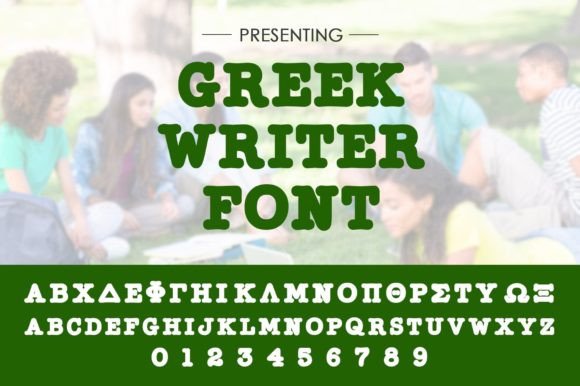
Greek Writer Font: The Ultimate Choice for Designing Greek and Collegiate T-Shirts
The Greek Writer font has gained immense popularity among designers and fraternity/sorority enthusiasts alike. This unique serif font is specifically designed for creating stunning Greek and collegiate-themed designs, making it a top choice for t-shirt designers, promotional product creators, and more. In this article, we’ll dive into the world of Greek Writer font and explore its features, benefits, and uses.
What is Greek Writer Font?
Greek Writer font is a distinctive serif font designed specifically for fraternities and sororities. Its unique style and characteristics make it an ideal choice for creating eye-catching designs for Greek and collegiate-themed products. The font’s design is inspired by traditional Greek typography, with a modern twist to make it suitable for contemporary designs.
Key Features of Greek Writer Font
- Unique Serif Design: Greek Writer font boasts a distinctive serif design that sets it apart from other fonts. Its serifs are carefully crafted to give the font a classic, yet modern look.
- No Lowercase Letters: One of the standout features of Greek Writer font is that it does not have lowercase letters. This is a deliberate design choice to give the font a bold and eye-catching appearance.
- Perfect for Greek and Collegiate Designs: The font’s design is specifically tailored for Greek and collegiate-themed designs, making it an excellent choice for fraternity and sorority t-shirts, promotional products, and more.
Benefits of Using Greek Writer Font
Using Greek Writer font for your design projects offers several benefits. Here are some of the advantages of choosing this font:
- Instant Recognition: The Greek Writer font is instantly recognizable as a Greek or collegiate-themed font, making it perfect for designs that require a specific aesthetic.
- High Readability: The font’s clear and bold design ensures high readability, even at smaller font sizes.
- Versatility: Greek Writer font can be used for a wide range of design projects, from t-shirts and promotional products to posters and flyers.
- Unique Style: The font’s distinctive style sets it apart from other fonts, giving your designs a unique and eye-catching appearance.
Designing with Greek Writer Font
Designing with Greek Writer font is relatively straightforward. Here are some tips to help you get started:
- Choose a Bold Color Scheme: Greek Writer font looks best with bold and bright color schemes that match the Greek or collegiate theme.
- Experiment with Different Sizes: The font’s clear design ensures that it remains readable at various font sizes, so feel free to experiment with different sizes to find the one that works best for your design.
- Pair with Other Fonts: Greek Writer font can be paired with other fonts to create a unique and visually appealing design.
The Perfect Font for Fraternity and Sorority T-Shirts
Greek Writer font is an excellent choice for designing fraternity and sorority t-shirts. Its unique style and bold design make it perfect for creating eye-catching designs that represent the Greek spirit. Here are some reasons why Greek Writer font is ideal for fraternity and sorority t-shirts:
- Represents the Greek Spirit: The font’s design is inspired by traditional Greek typography, making it a perfect representation of the Greek spirit.
- Bold and Eye-Catching: The font’s bold design ensures that your t-shirt design will stand out and grab attention.
- Easy to Read: The font’s clear design makes it easy to read, even at smaller font sizes.
Designing Promotional Products with Greek Writer Font
Greek Writer font is not limited to t-shirt design. It can also be used to create stunning promotional products, such as:
- Mugs: Design eye-catching mugs with Greek Writer font to promote your brand or organization.
- Water Bottles: Create stylish water bottles with Greek Writer font to showcase your brand’s personality.
- Posters and Flyers: Use Greek Writer font to create bold and eye-catching posters and flyers for your events or promotions.
In conclusion, Greek Writer font is a unique and versatile font that is perfect for designing Greek and collegiate-themed products. Its bold and eye-catching design makes it an excellent choice for fraternity and sorority t-shirts, promotional products, and more. With its high readability and distinctive style, Greek Writer font is sure to elevate your designs and make them stand out.